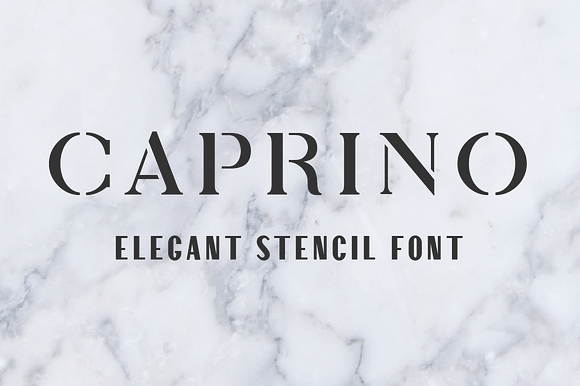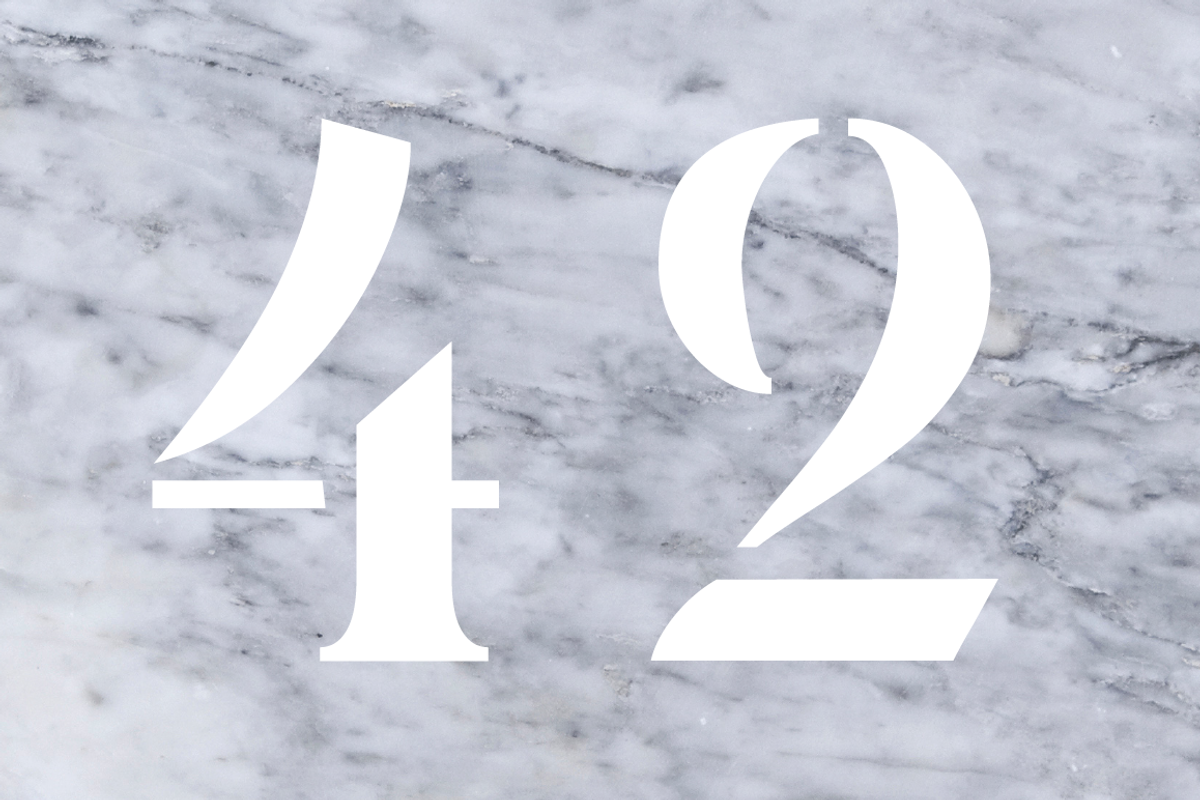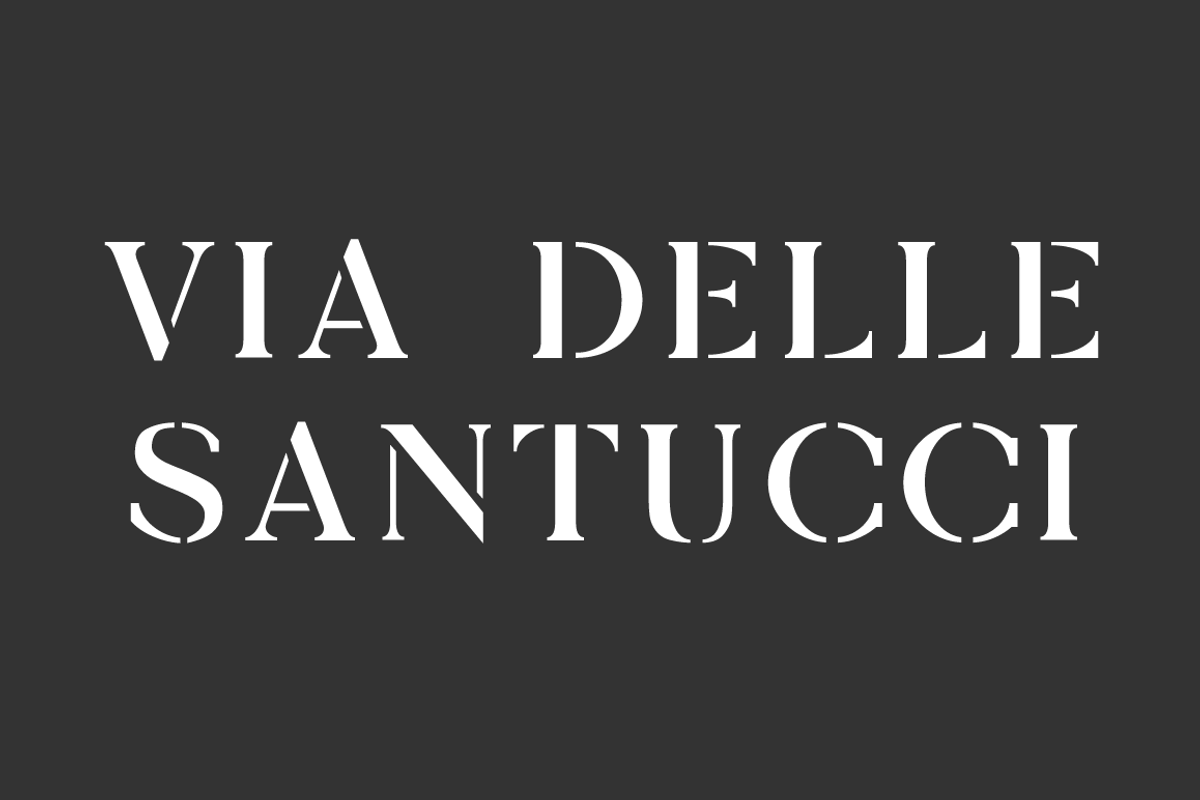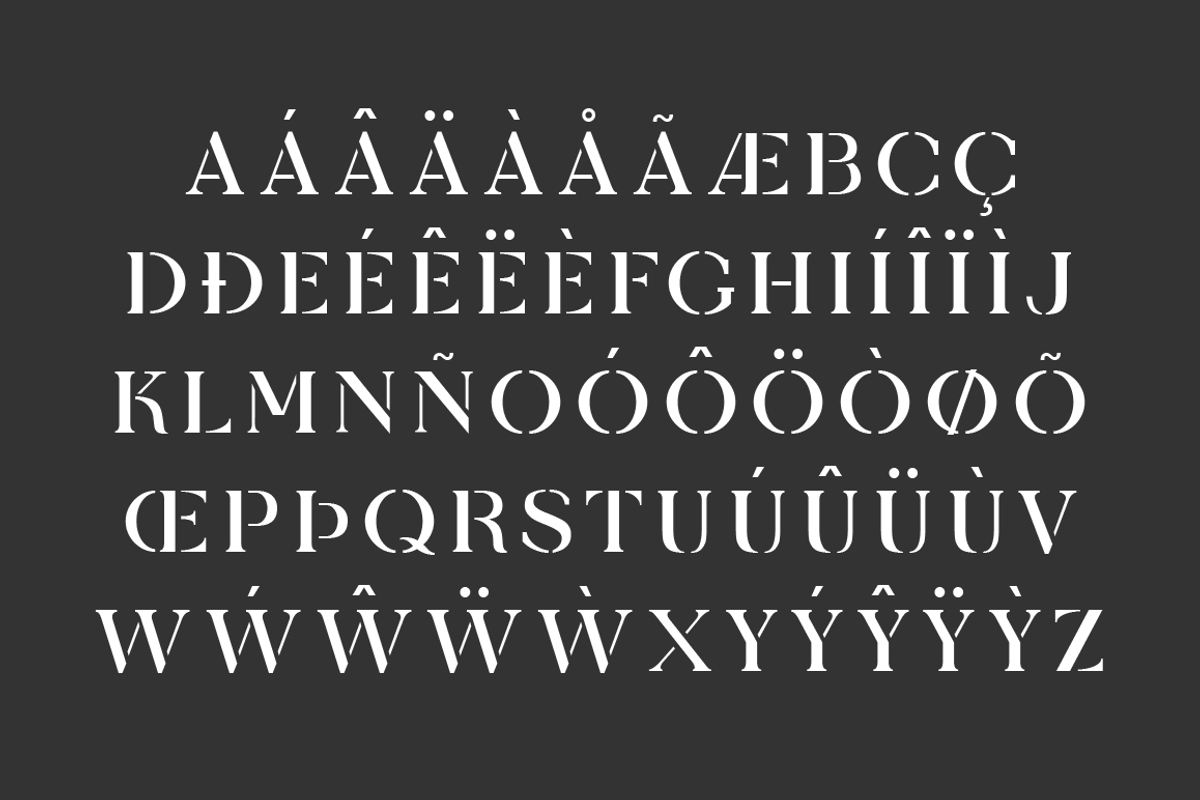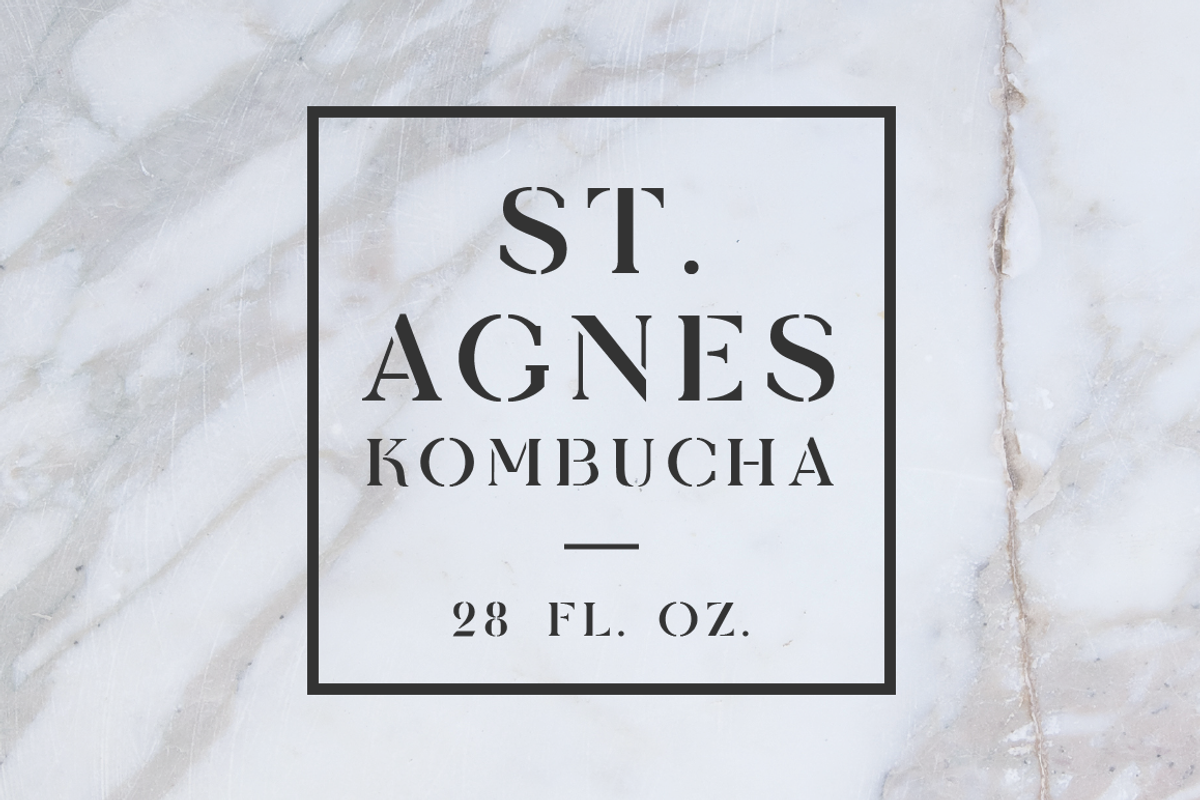
Caprino Stencil Font
Caprino is an elegant stencil font based on Italian street signs.
- Multilingual support
Caprino Stencil Font by hudlow fits naturally into Branding, posters, packaging, typography.